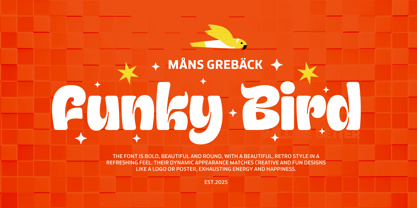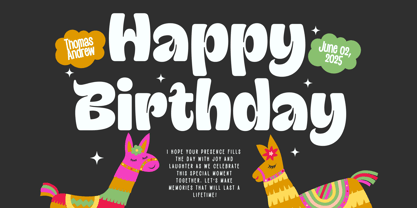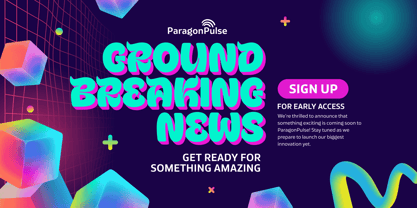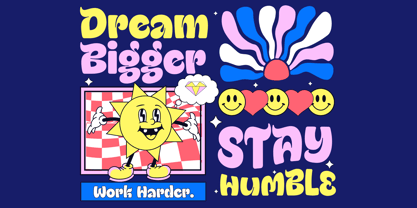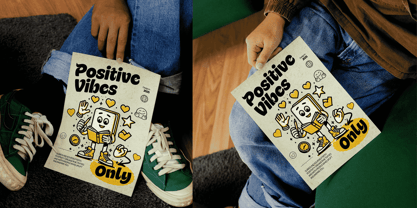
Funky Bird
by Mans Greback
The Funky Bird Font Family was designed by Måns Grebäck and published by Mans Greback. Funky Bird contains 2 styles and family package options. More about this family
Funky Bird is groovy display font oozing with playful charm.
With bulbous curves and bouncy shapes, this typeface has a warm and inviting personality, perfect for projects that aim to bring a smile and a touch of nostalgia. Picture this font on a vintage concert poster, a friendly bakery logo, or the title of a kids' book. It’s as if the letters themselves are swaying to a beat.
The font is built with advanced OpenType functionality and guaranteed top-notch quality, containing stylistic and contextual alternates, ligatures and more automatic and manual features; all to give you full control and customizability.
It has extensive lingual support, covering all Latin-based languages, from North Europa to South Africa, from America to South-East Asia. It contains all characters and symbols you'll ever need, including all punctuation and numbers.
Mans Greback created this font to bring a touch of lighthearted, funky vibes to your designs. An unmissable retro flair with that necessary modern crispness.
Måns Grebäck is a type designer and font creator specializing in script typography, but with a portfolio containing a vast selection of styles. Typefaces from Måns Grebäck are used as company and product logotypes, as well as headlines and in advertisement by a wide range of industries world-wide. Founded by Måns Grebäck in 2010, Mans Greback AB originally went under the name of Mawns Fonts and later Aring Typeface AB. While the foundry has its seat Örebro, Sweden, Måns also lives in Portugal. The Premium Foundry page can be viewed Here.